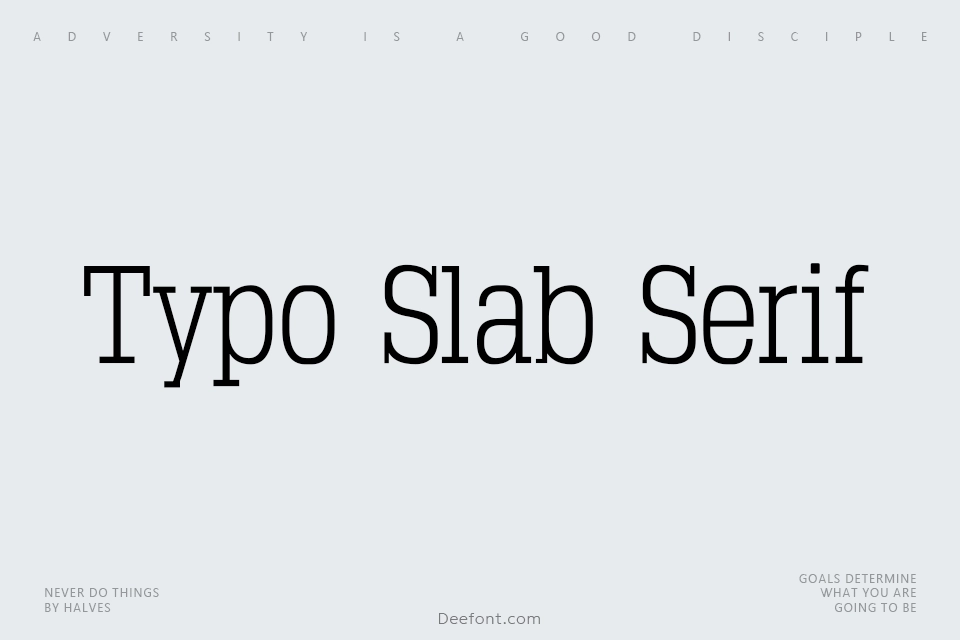
Typo Slab Serif Font
Typo Slab serif Font is a distinctive slab serif typeface that perfectly balances classic elegance with contemporary design sensibilities. Created with meticulous craftsmanship, this font features robust, blocky serifs paired with clean, structured letterforms that deliver strong visual impact. Ideal for headlines, display work, and editorial design, Typo Slab serif brings authoritative presence to any project while maintaining excellent readability across both print and digital mediums. The font’s versatile nature makes it suitable for branding, advertising materials, and creative typography applications where bold character expression is desired.
Designed by:Manfred Klein